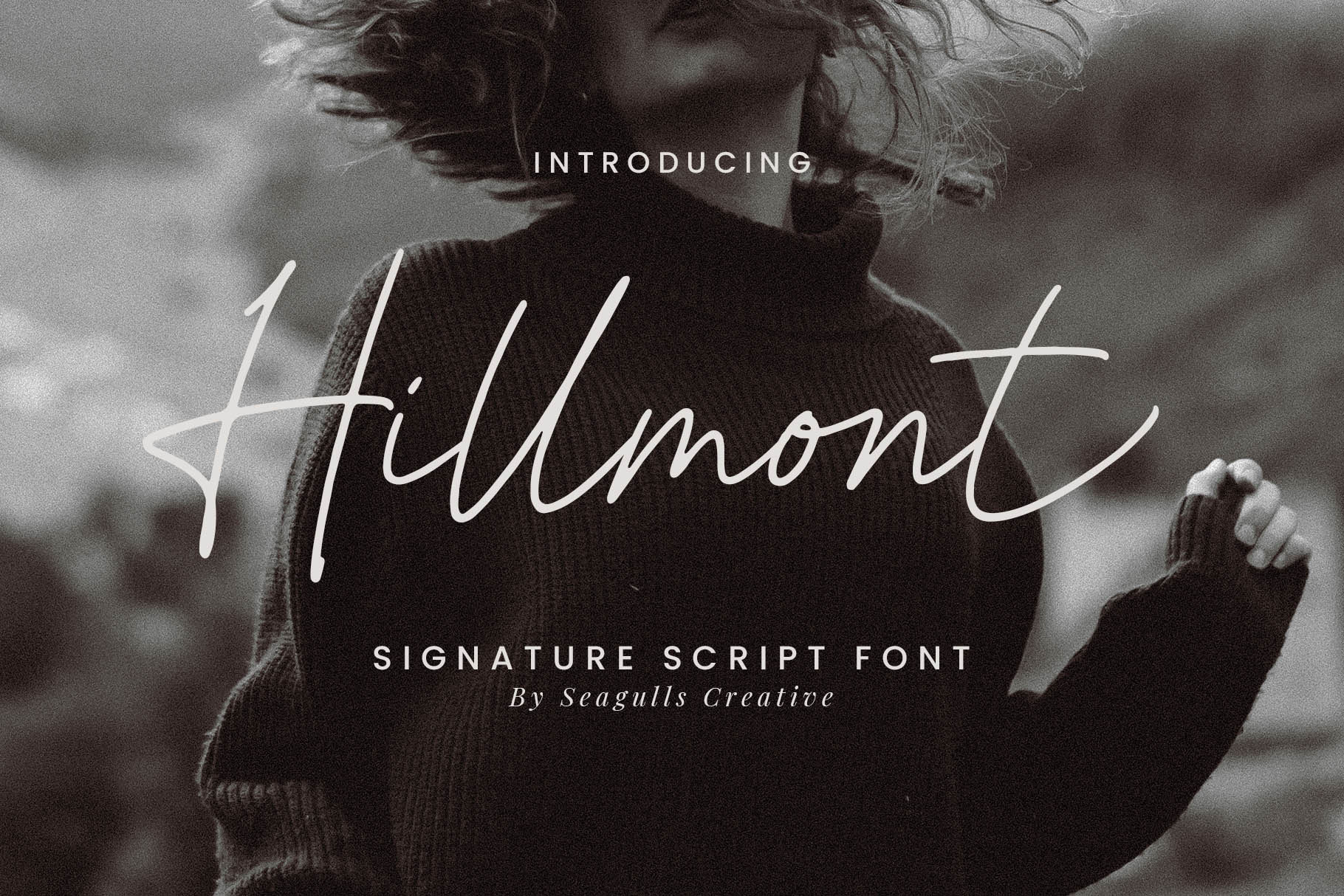
Hello everyone, I would like to introduce Hillmont a signature script font.
Hillmont can be used for a variety of projects such as branding, labels, photography, invitations, stationery, watermark, social media posts, advertising, product packaging, product design, and more.
- Letters, numbers, symbols, punctuation, ligatures and ending swashes